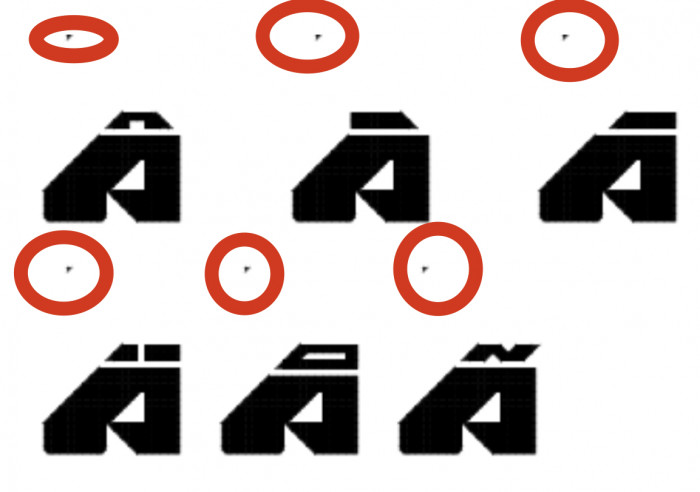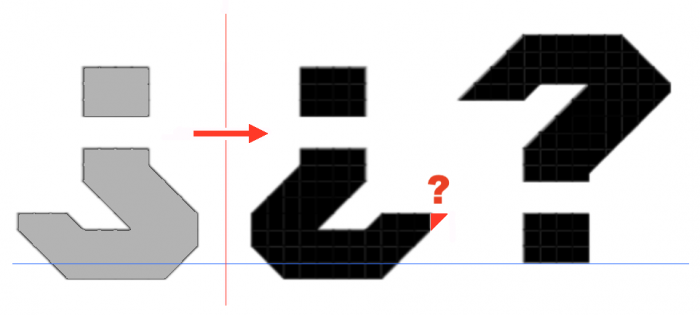
Can you fix these little floating triangle bricks in Á, À, Â, Ä, Å and Ã?
The Spanish upside down question mark is facing the wrong way. It should look like a question mark rotated 180 degrees.